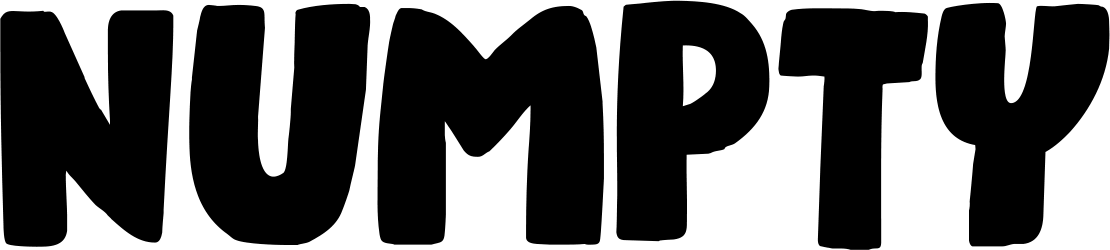
Numpty Font
Utilize Numpty that will give your typography a playful, exciting, and happy feel, especially with the chunky bold character that is cute, fun, and solid! This cartoon font will improve the way your typography is judged by bringing out happy emotions with a positive impact.
Numpty provides capital alphabets, numbers, and punctuation without lowercase letters. A few examples of where you might consider this fat sans serif font are books, cartoons, comics, animation movies, and games or wherever you wish to create your imagination.